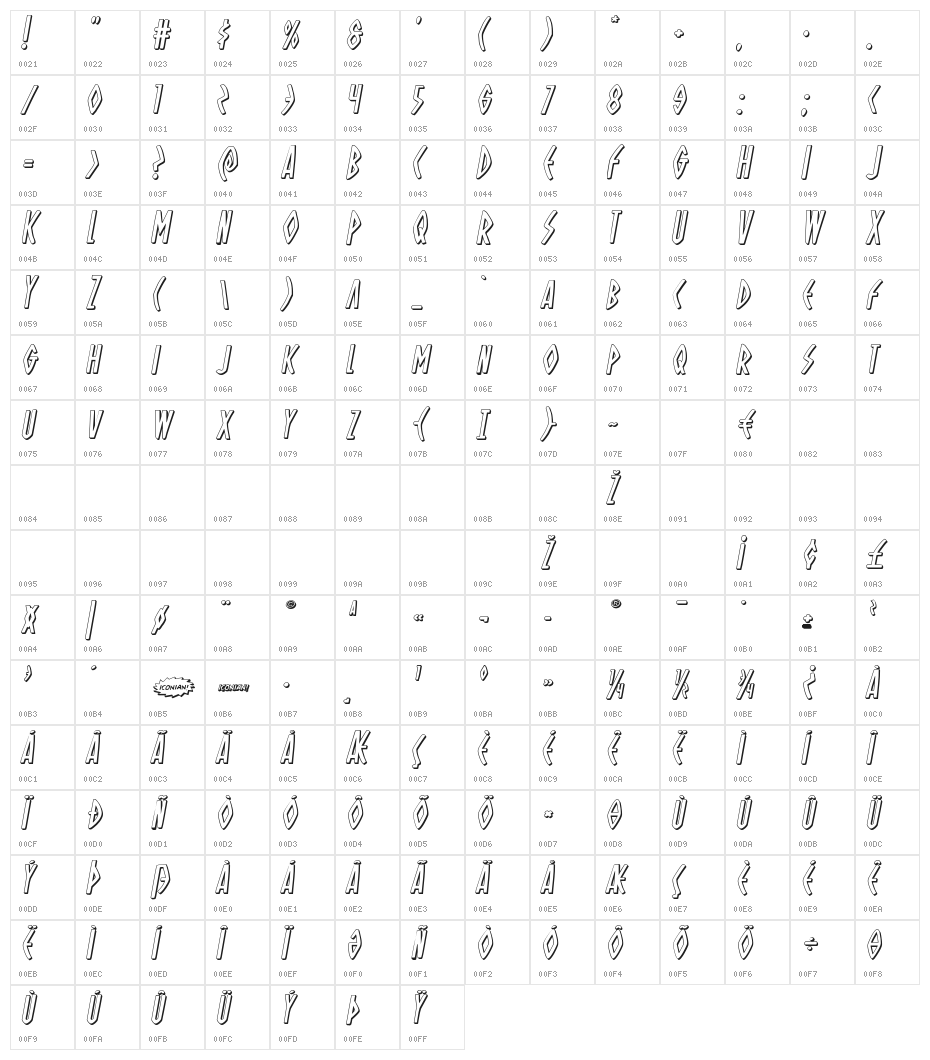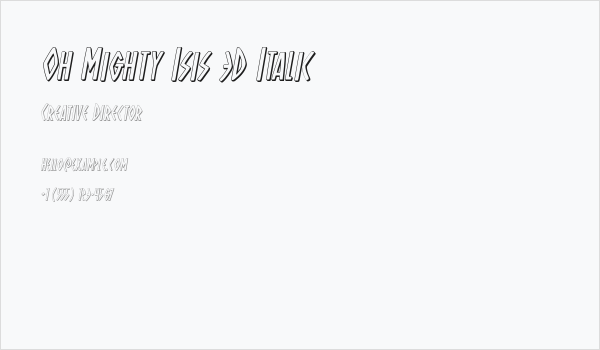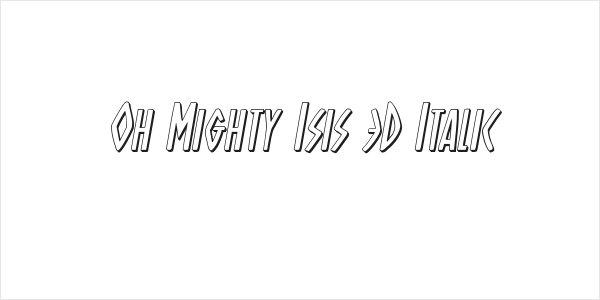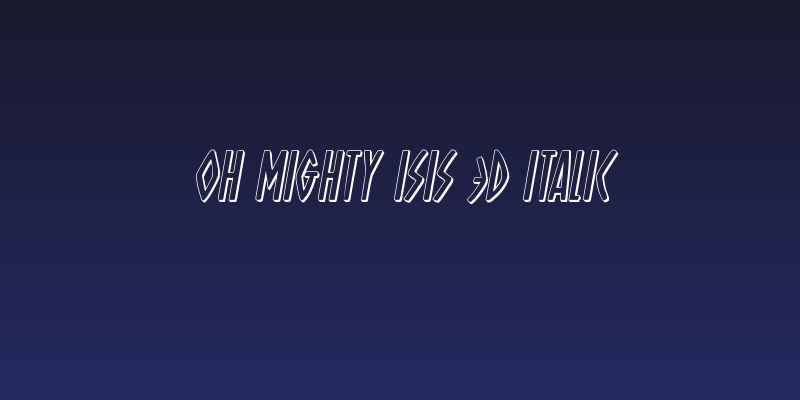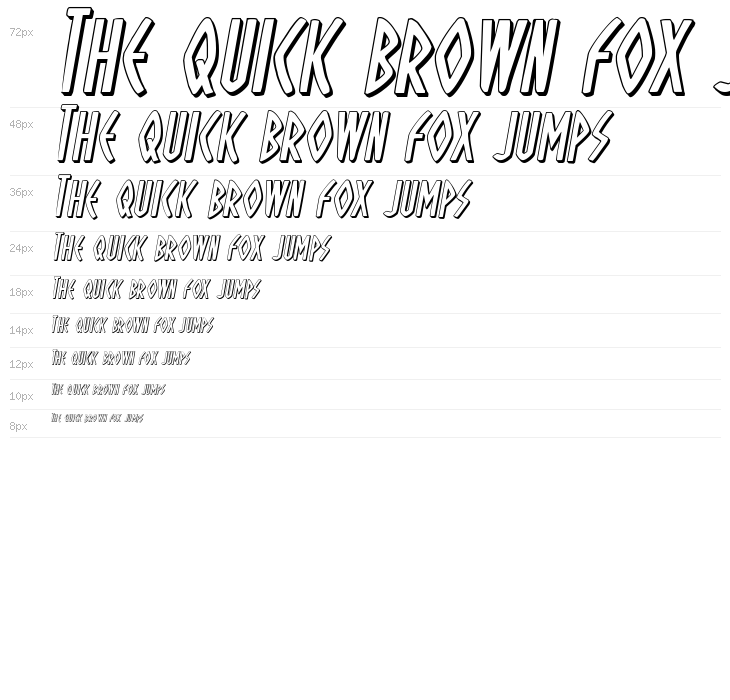
Oh Mighty Isis 3D Italic Font
Oh Mighty Isis 3D Italic Description
This font features a bold, 3D italic style with a strong presence. The letters are outlined, giving a shadow effect that enhances the three-dimensional appearance. The characters are slightly slanted, adding a dynamic and energetic feel. The uppercase and lowercase letters maintain a consistent style, with sharp angles and clean lines. The numerals and special characters follow the same design, ensuring uniformity across all glyphs. This font is eye-catching and ideal for making a statement.
| Proposed Projects | Ideal for posters, headlines, logos, and any design requiring a bold, impactful look. |